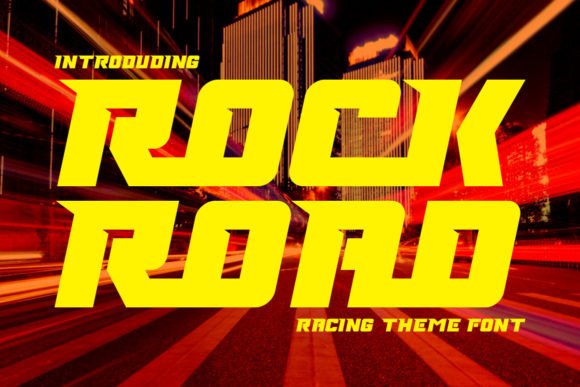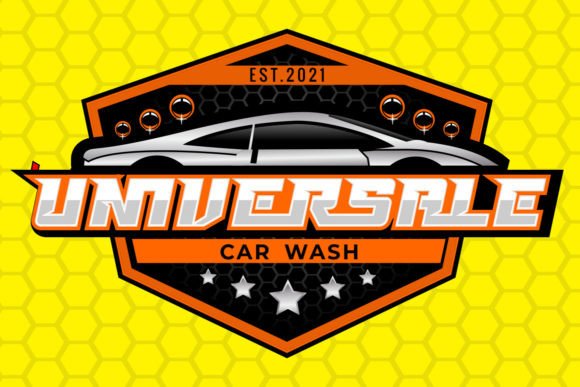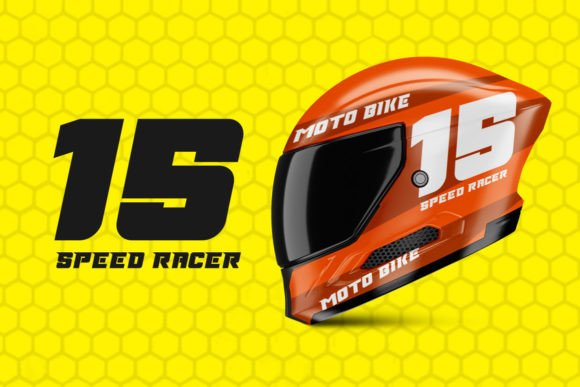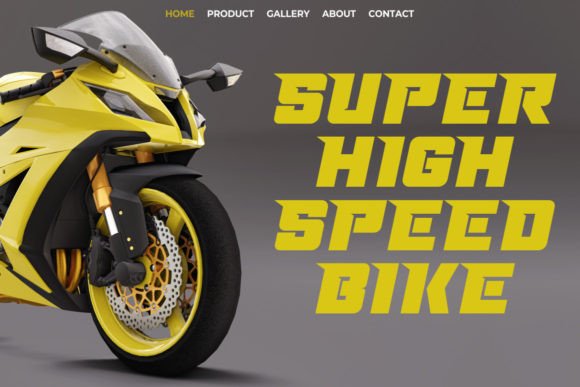
Rock Road Font
Rock Road is a racing theme display font with sharp and consistent angles. Its powerful and bold personality is perfect for all your projects that need to make an impact! This font is PUA encoded which means you can access all the glypsh and ligatures with ease!